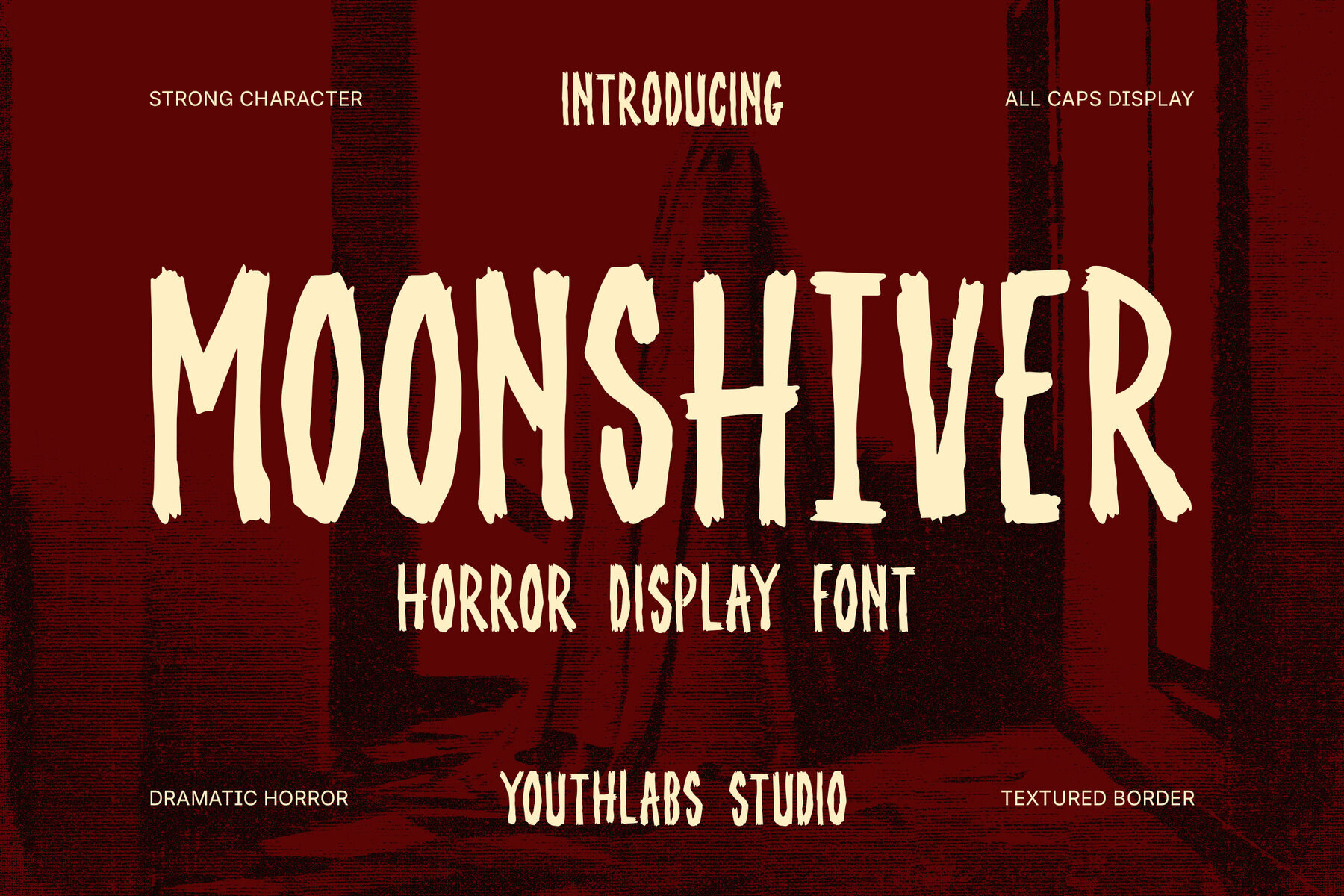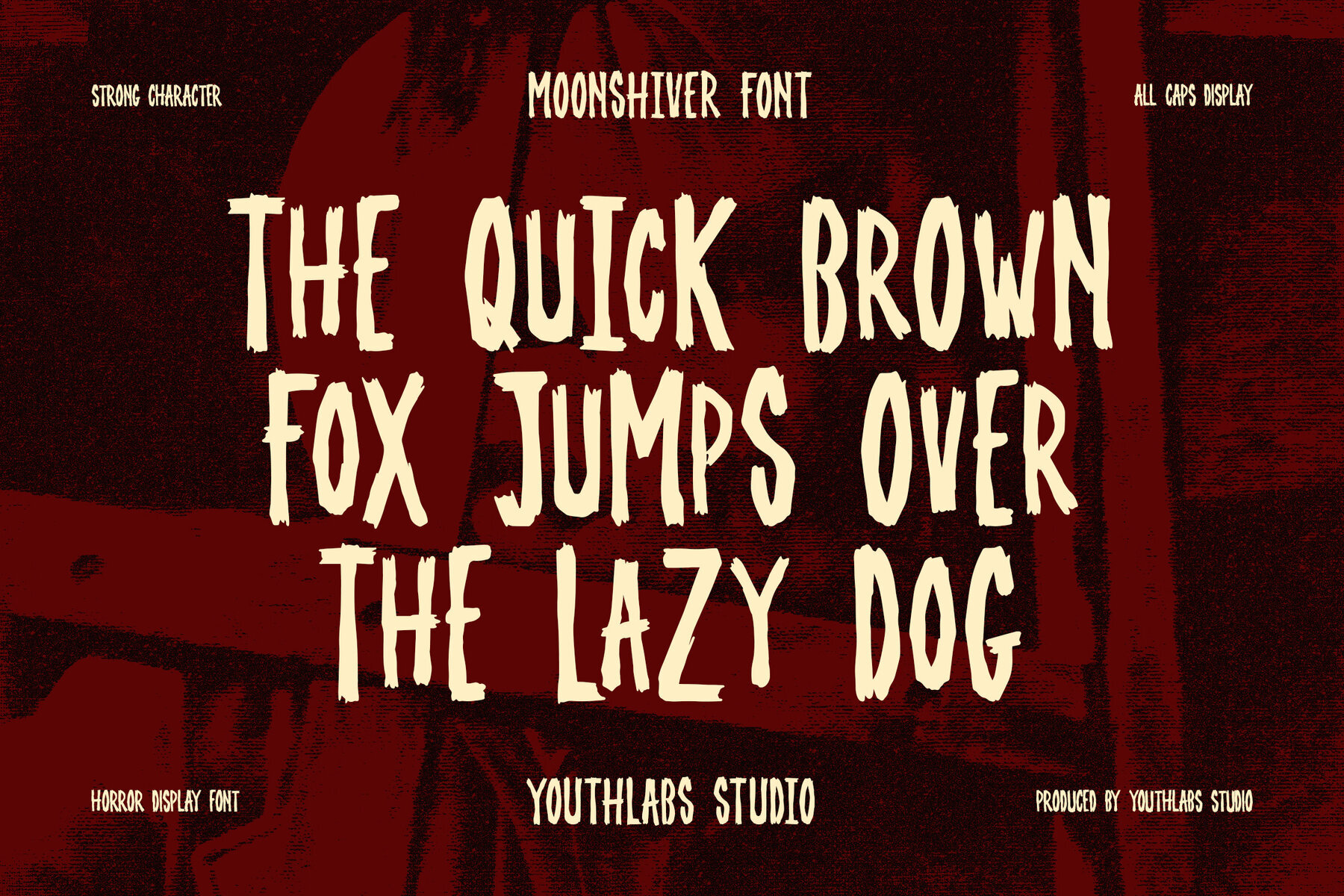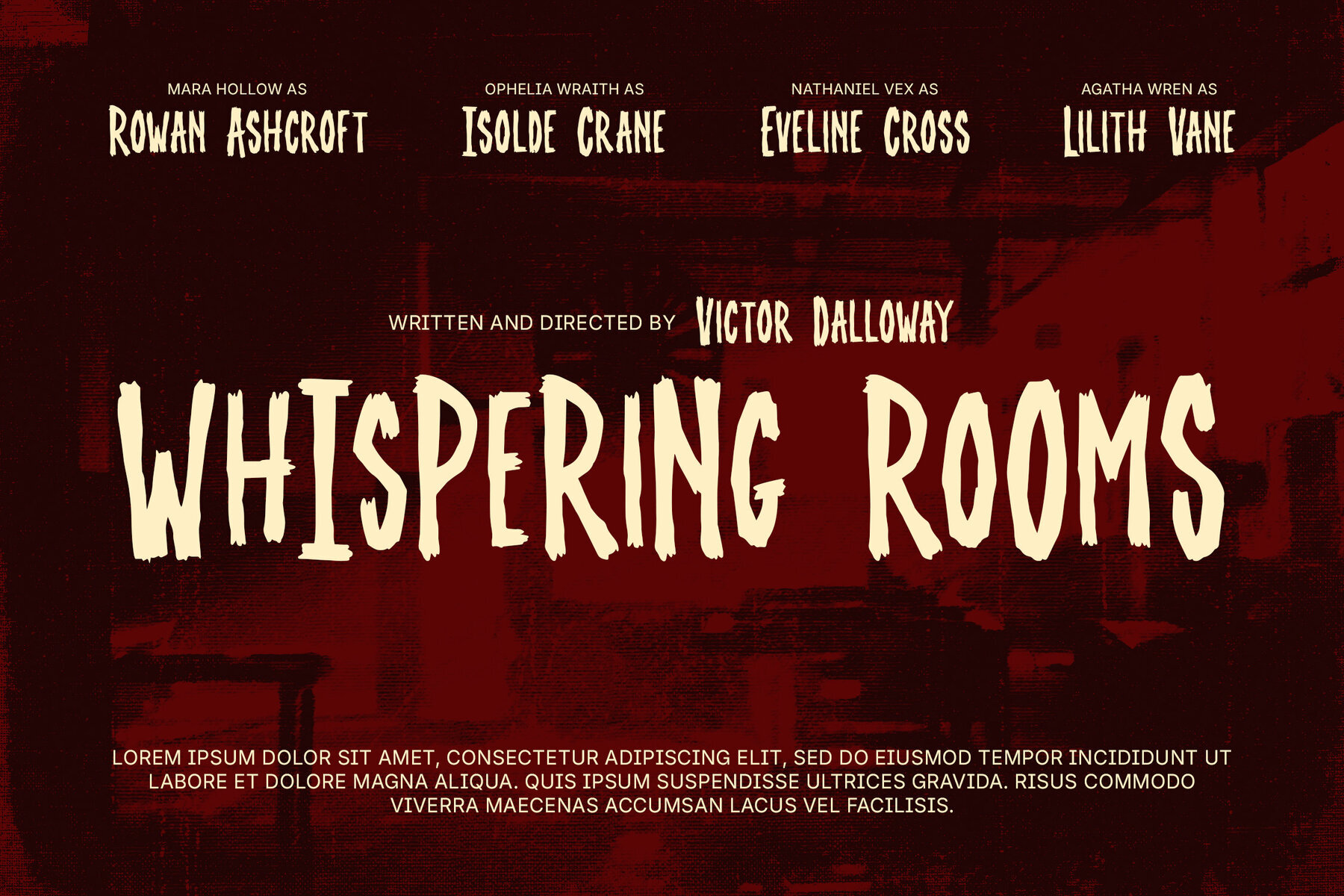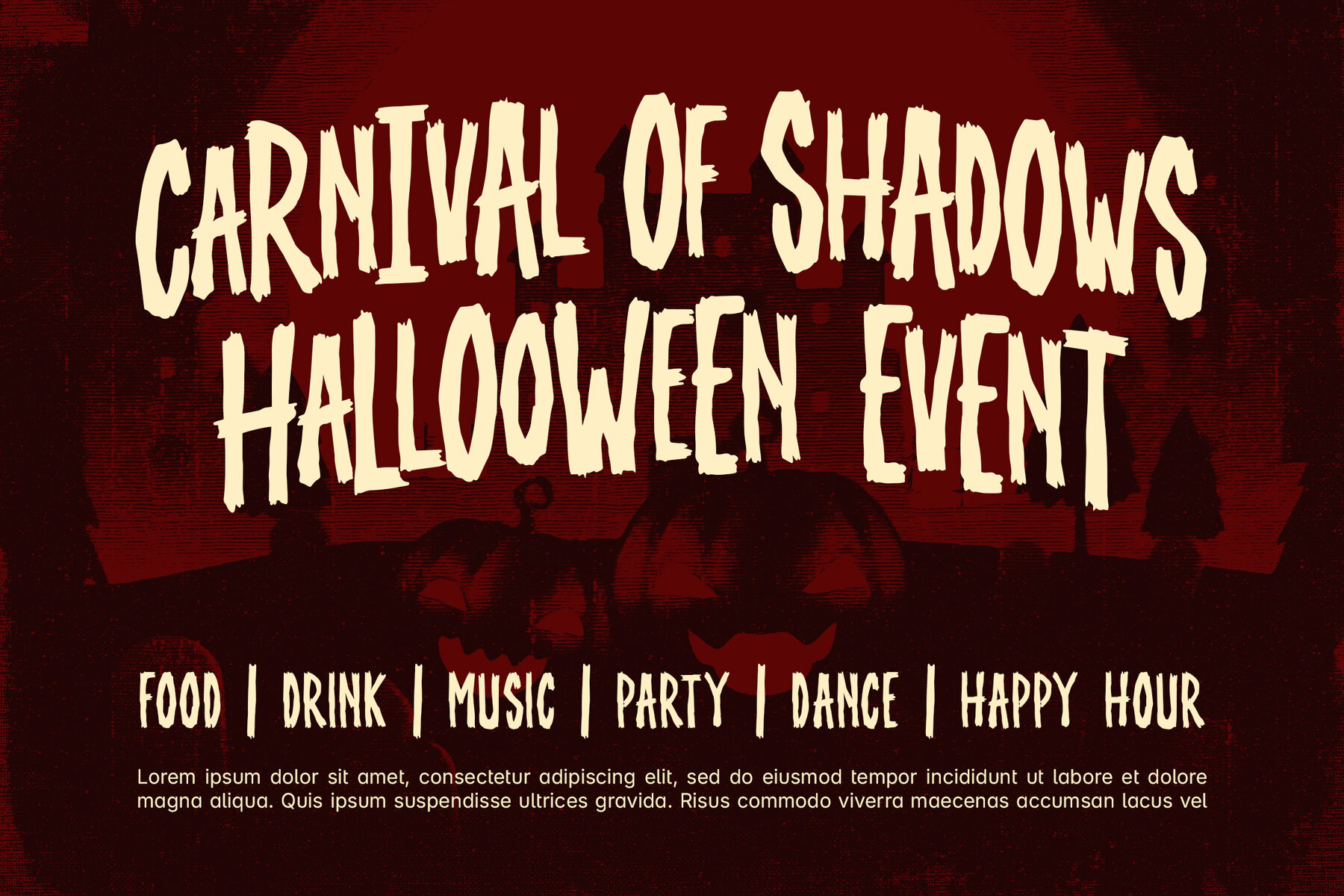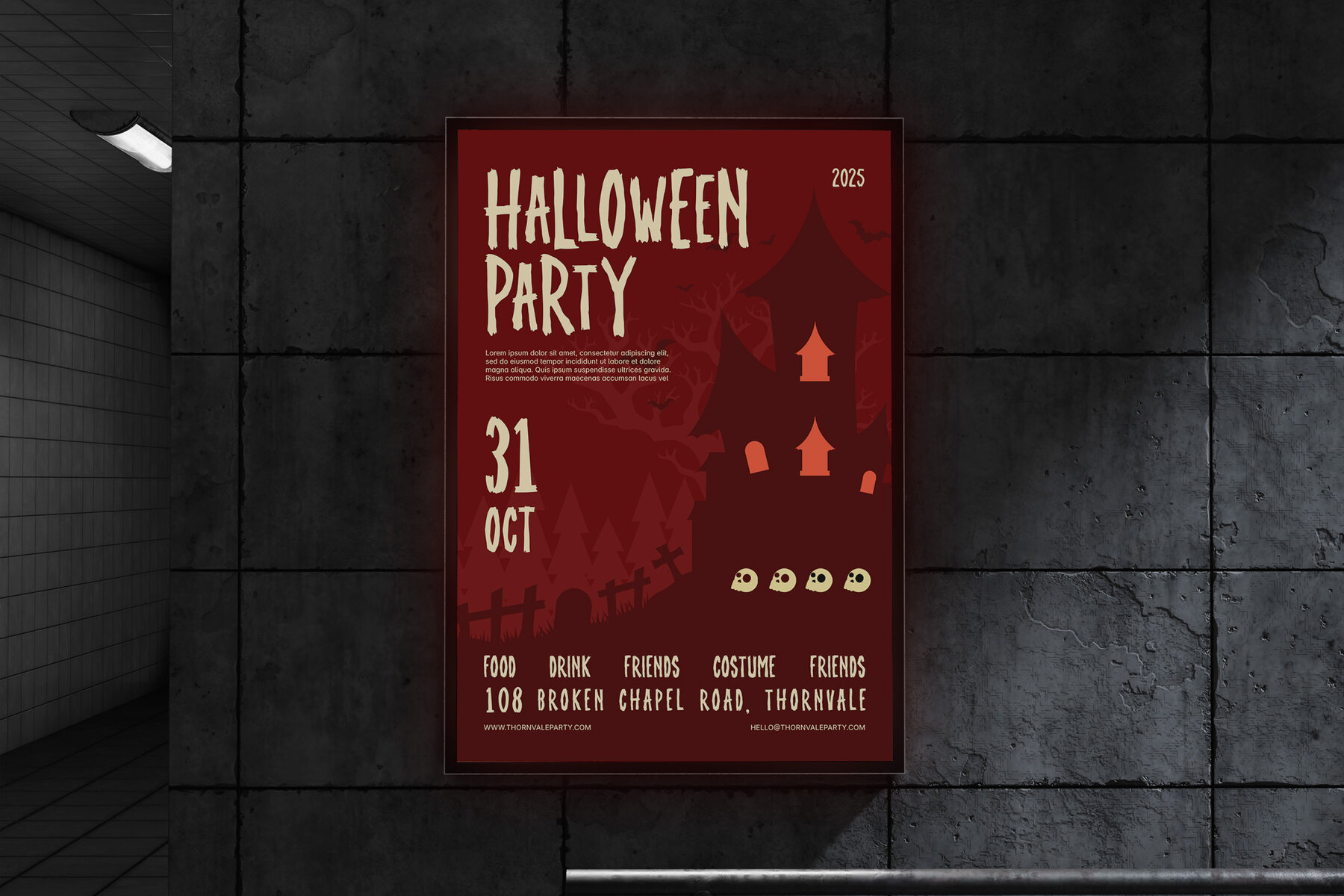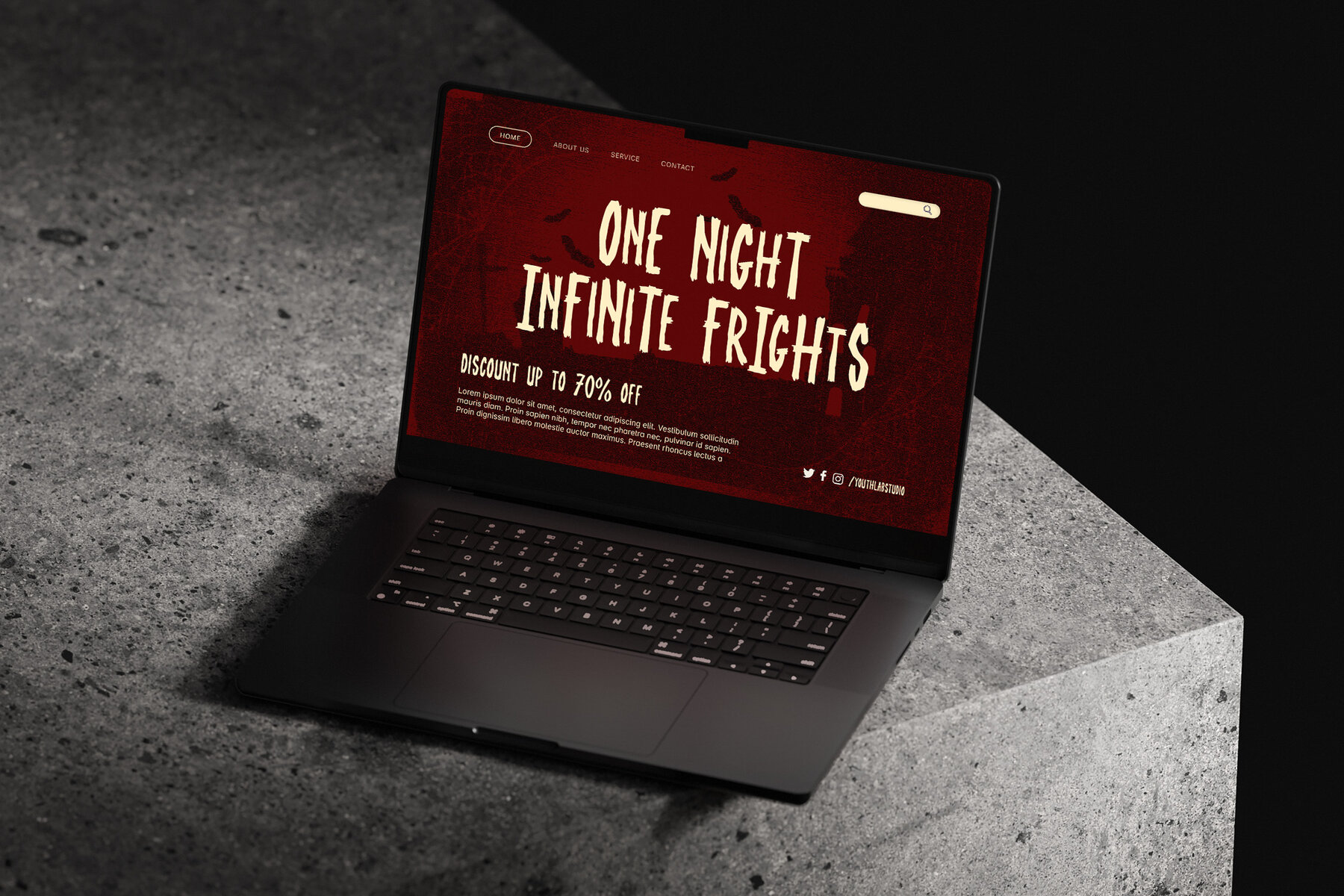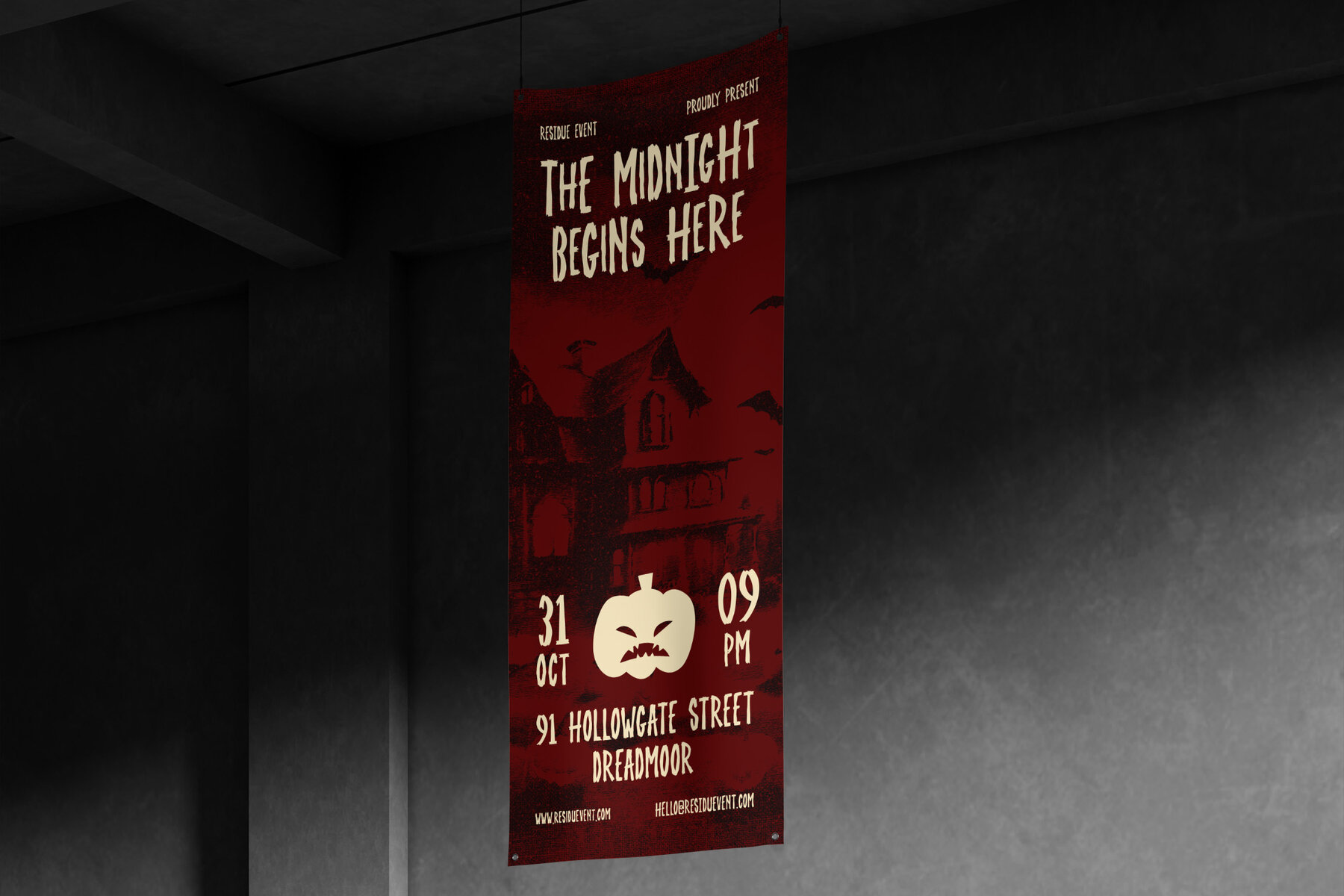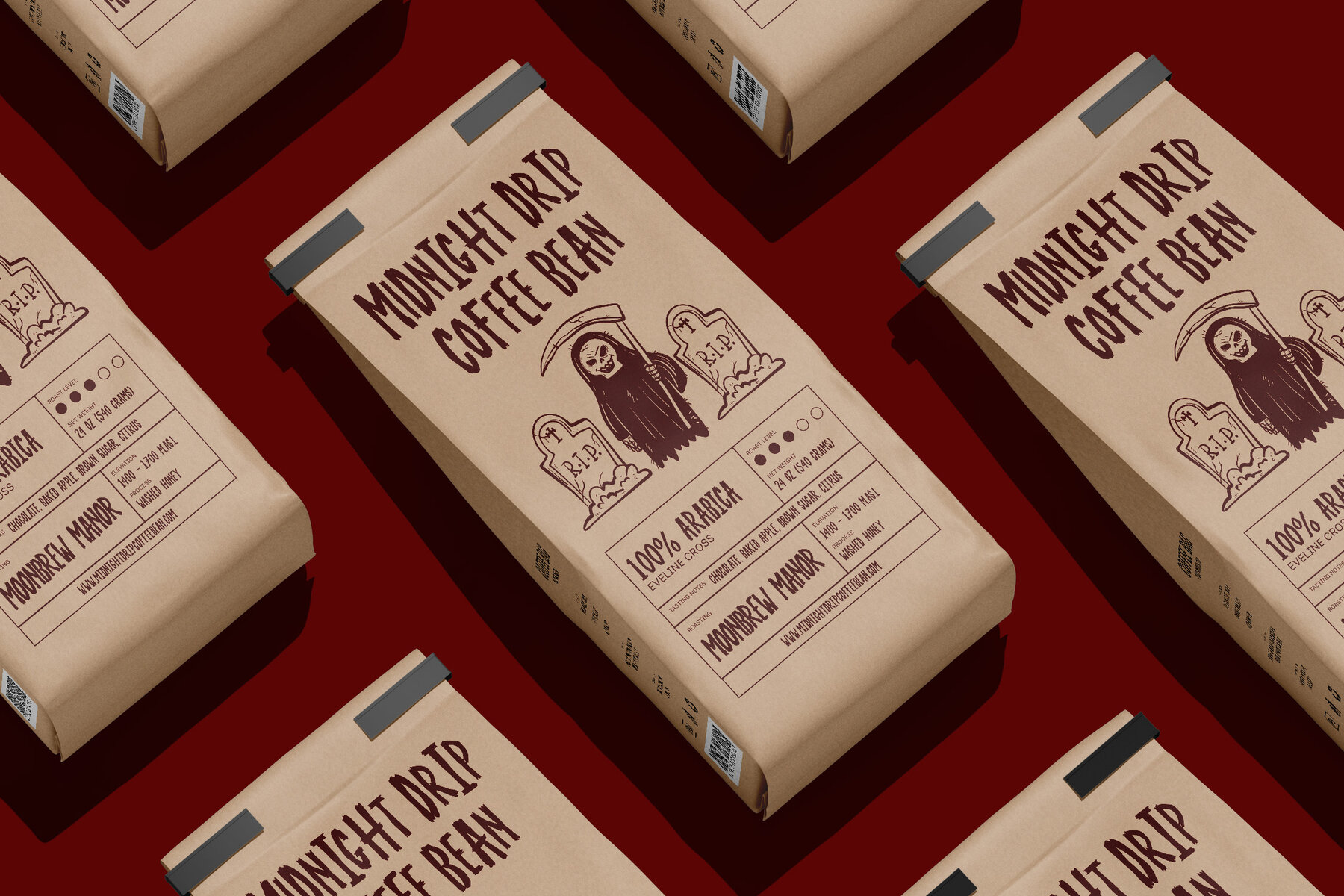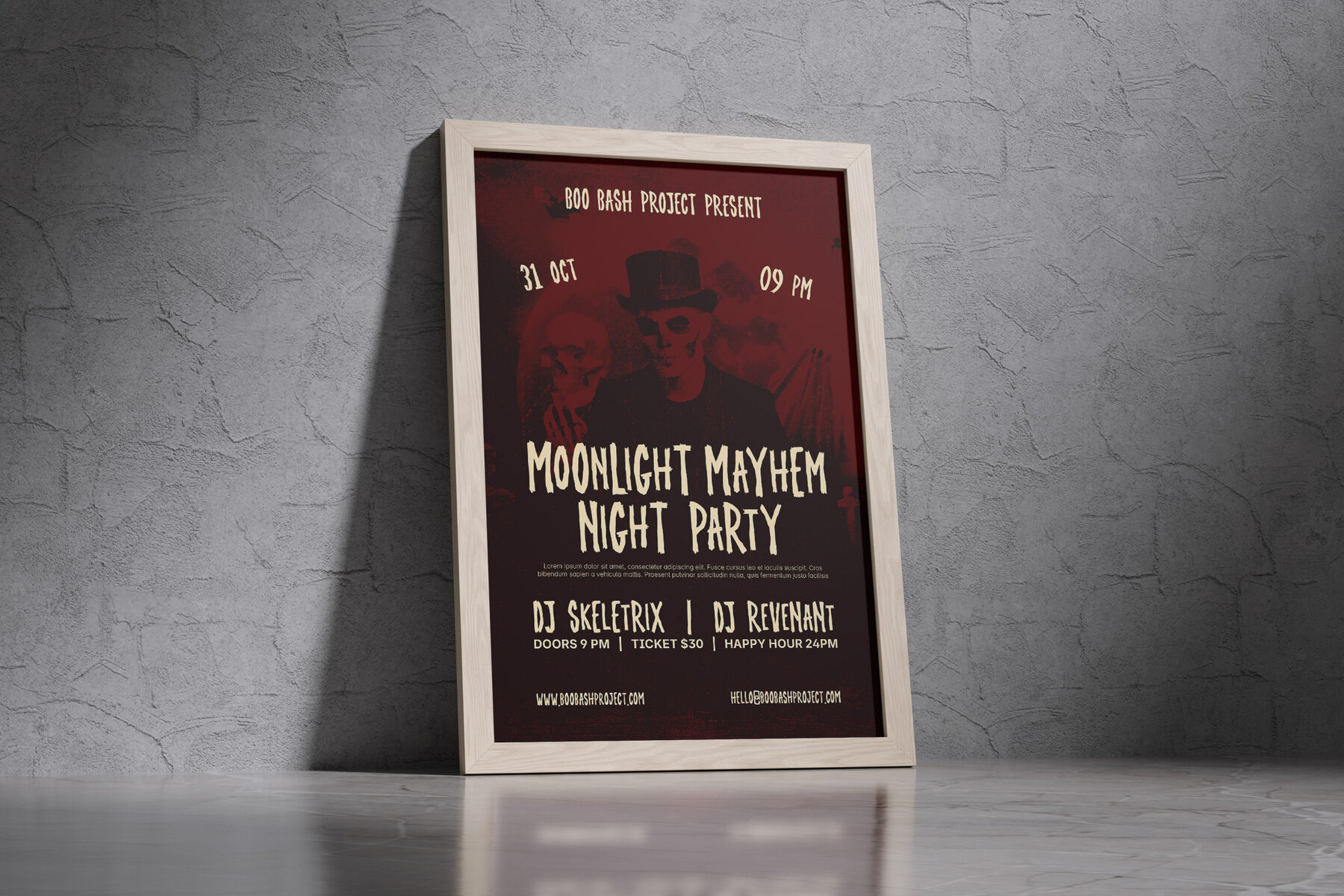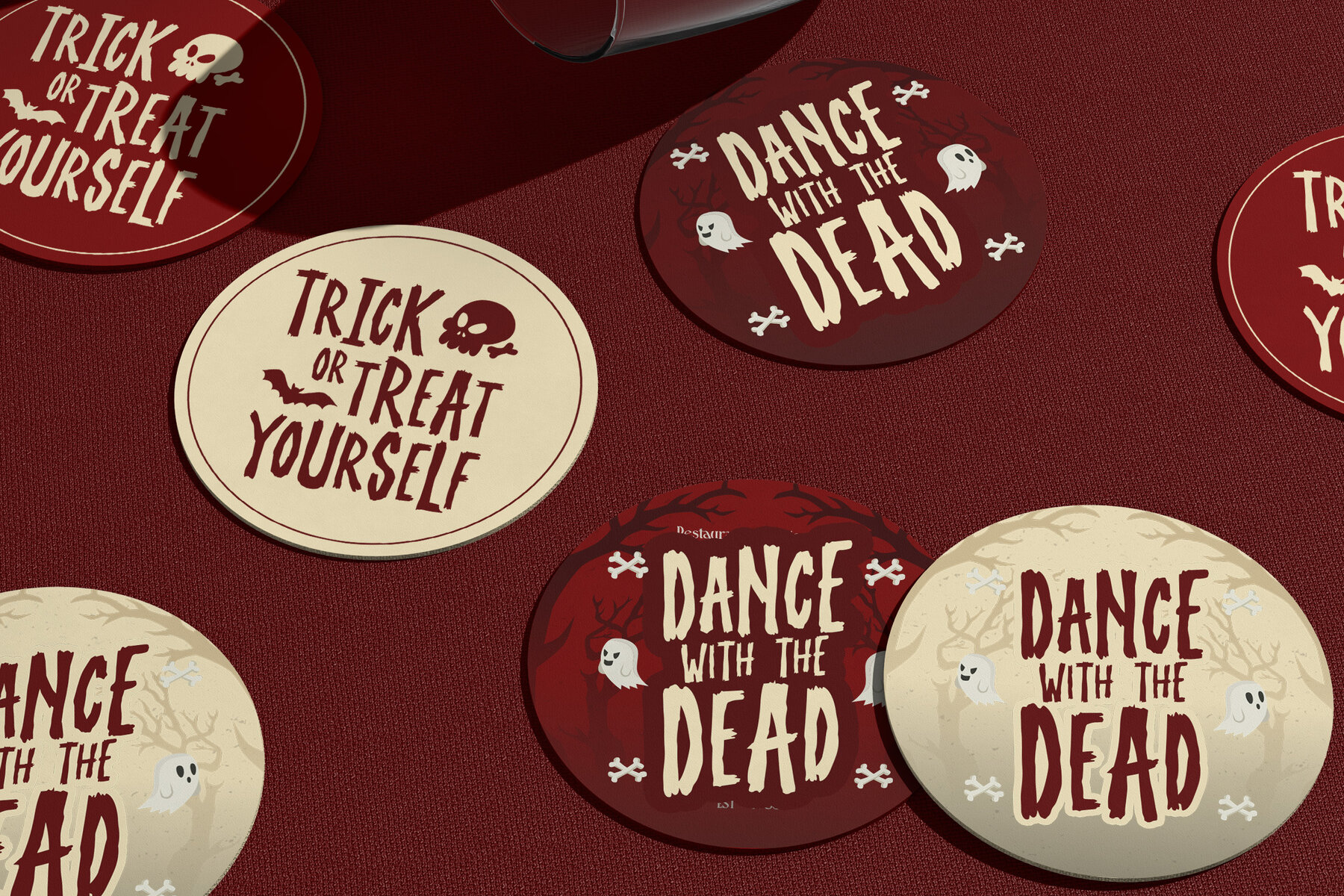
Moonshiver Font
Moonshiver Regular
Moonshiver captures the essence of classic horror with its jagged, hand-drawn strokes and gritty texture. The all-caps design delivers a strong, suspenseful presence, making it ideal for projects that need to evoke tension and cinematic energy. Its dramatic style draws inspiration from vintage horror movie typography, bringing an eerie atmosphere to everything from dark hallway scenes to unsettling whispers in the shadows. This font is a perfect fit for horror movie posters, Halloween invitations, chilling branding, and dark-themed merchandise. Its rough, textured letterforms give each word a haunting character, ensuring your designs stand out with bold readability. Moonshiver's vintage horror charm adds depth and personality, creating a mysterious or thrilling mood for every project.Moonshiver Horror Display Font